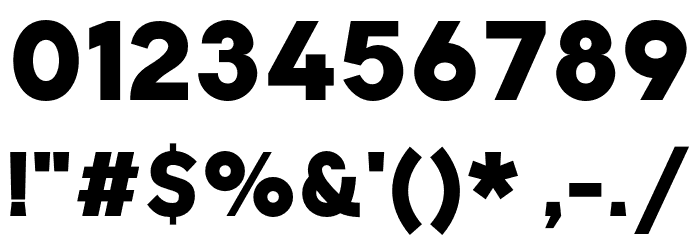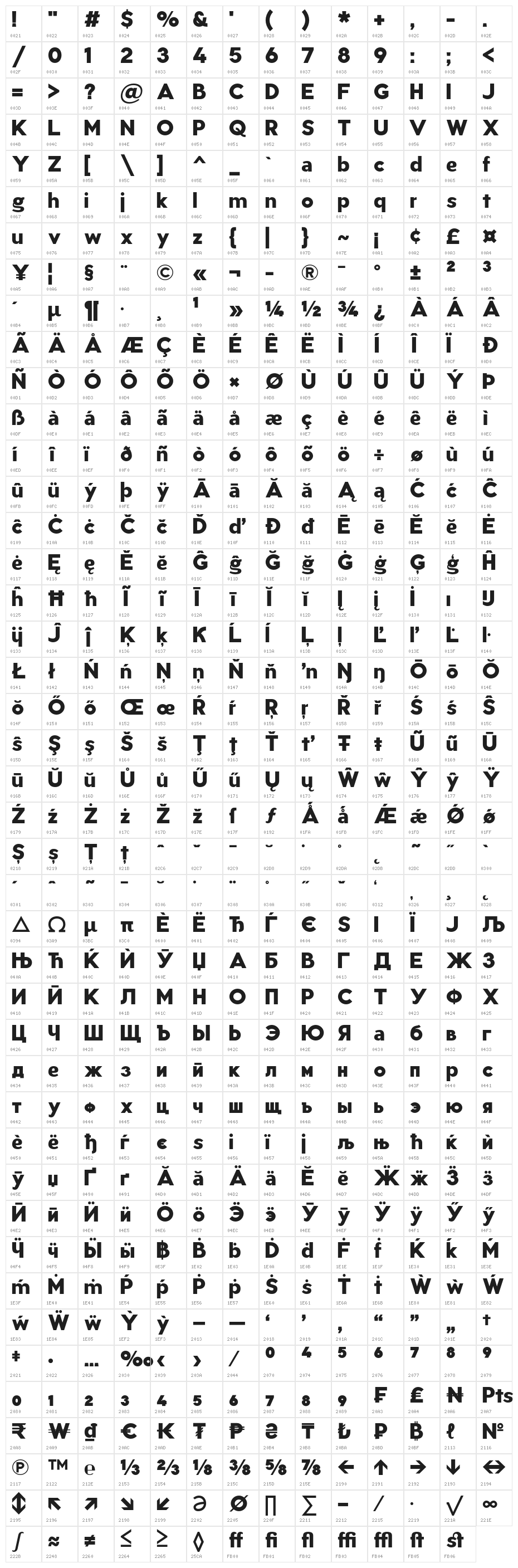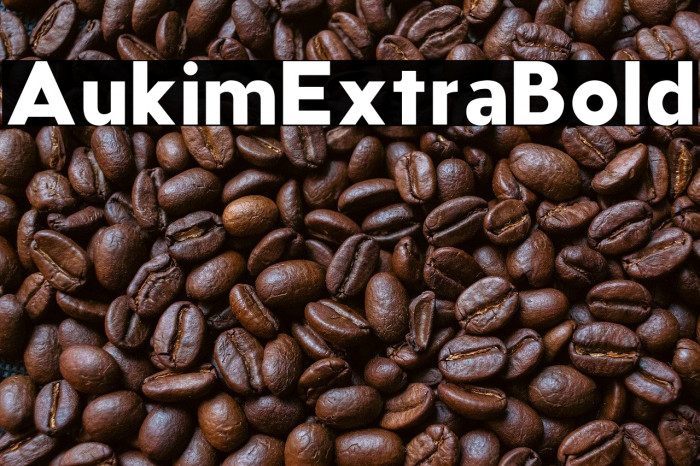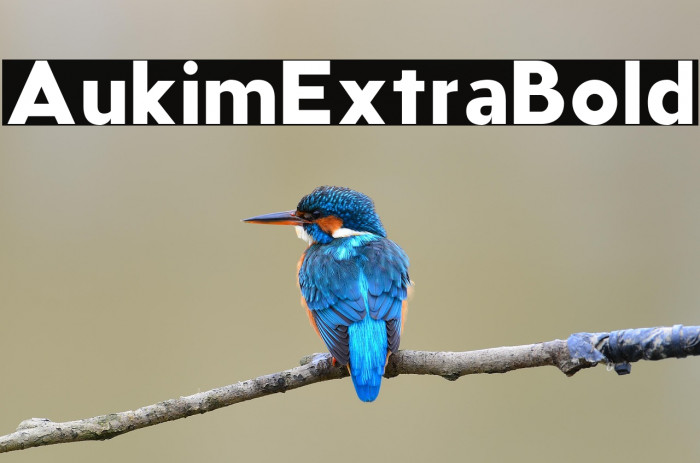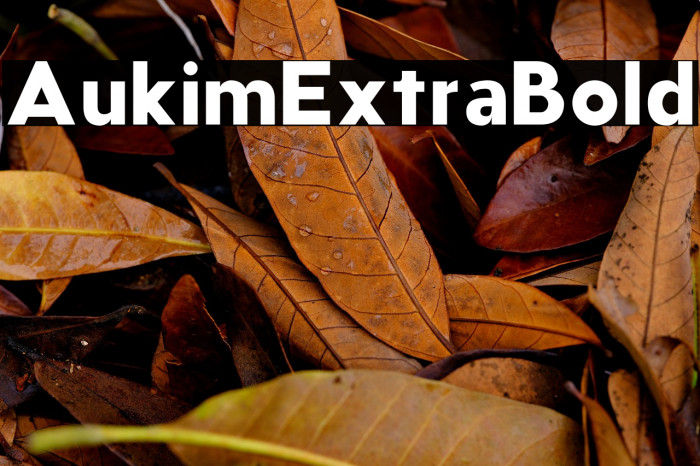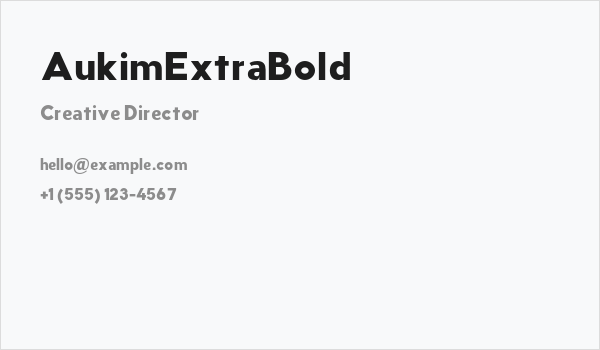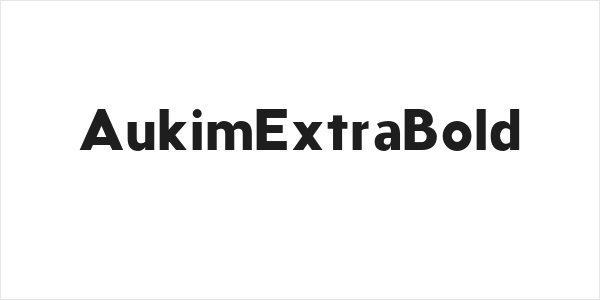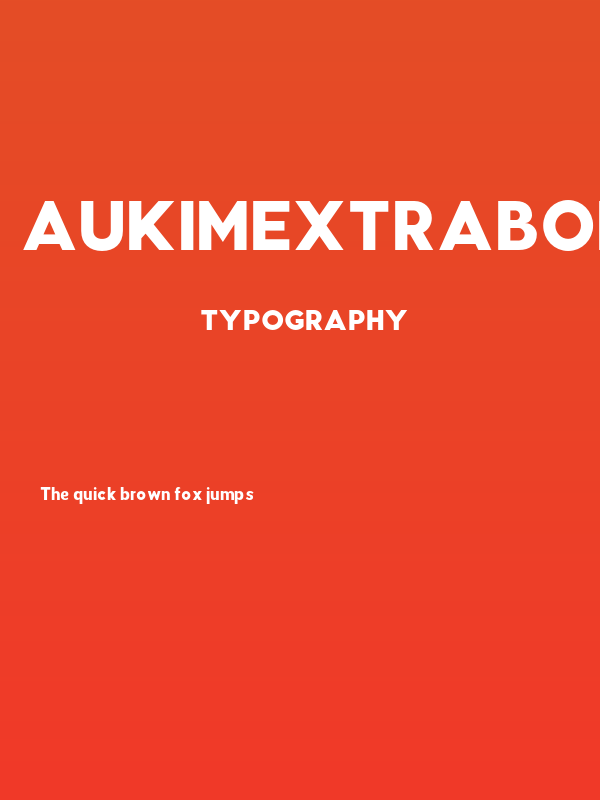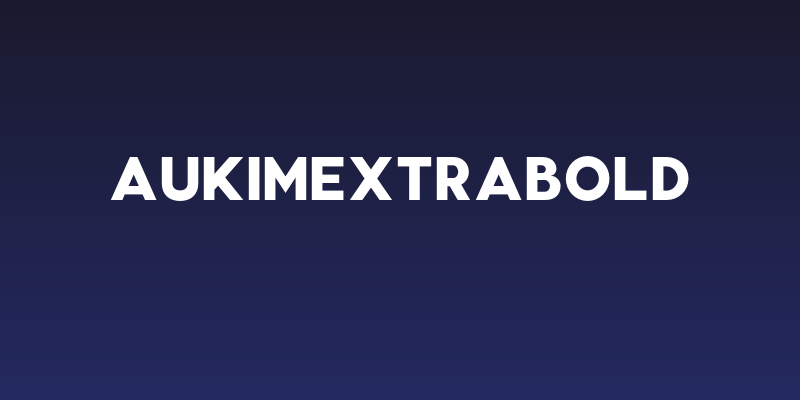
AukimExtraBold Font
AukimExtraBold Description
This font features a bold and striking appearance, characterized by thick, uniform strokes that convey a sense of strength and modernity. The uppercase letters are robust and commanding, while the lowercase letters maintain a consistent weight, ensuring readability and balance. The numerals are clear and bold, making them suitable for impactful displays. Special characters are designed with the same boldness, ensuring they stand out in any context. The overall style is clean and contemporary, making it versatile for various design needs.
| Proposed Projects | Ideal for branding, headlines, posters, and any project requiring a strong visual presence. |